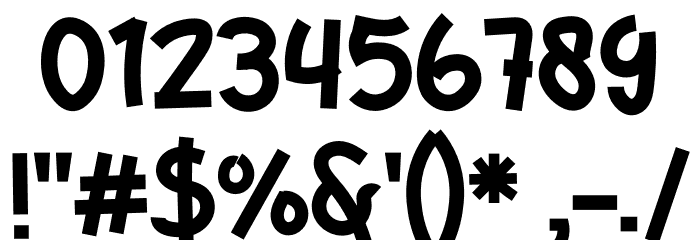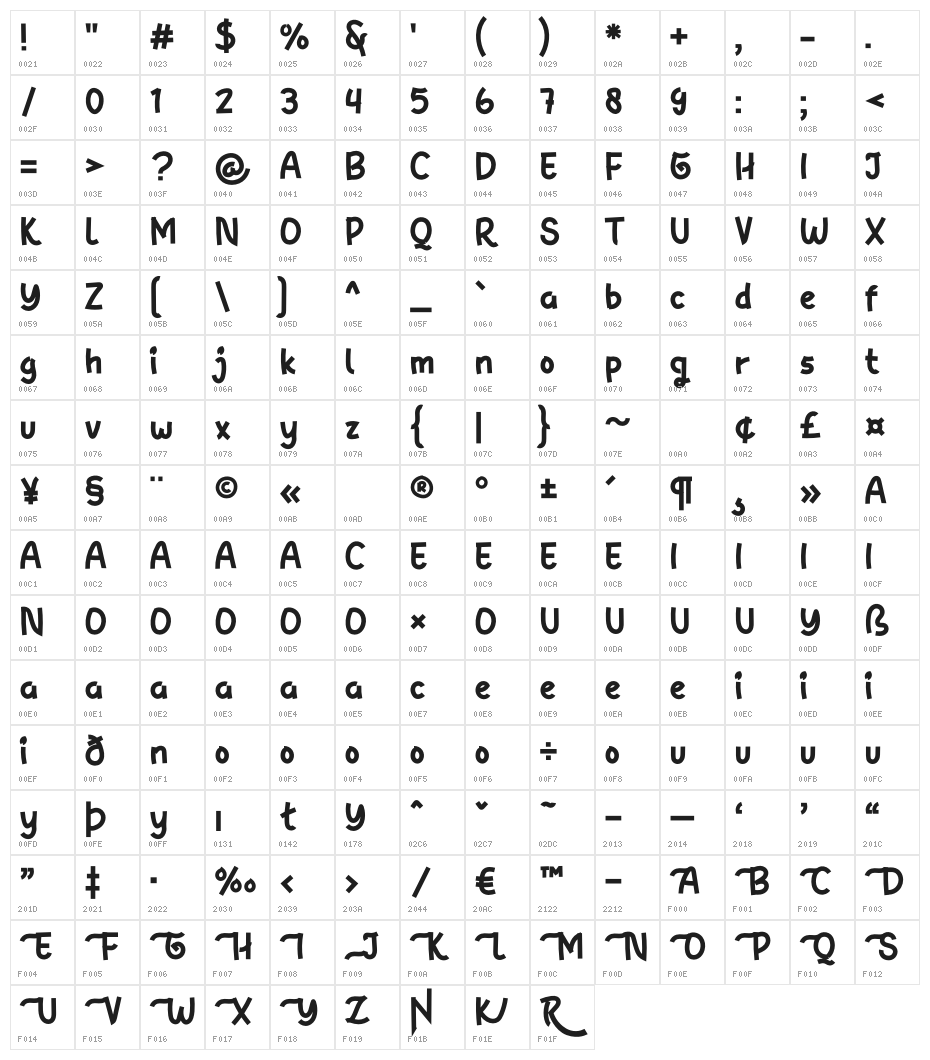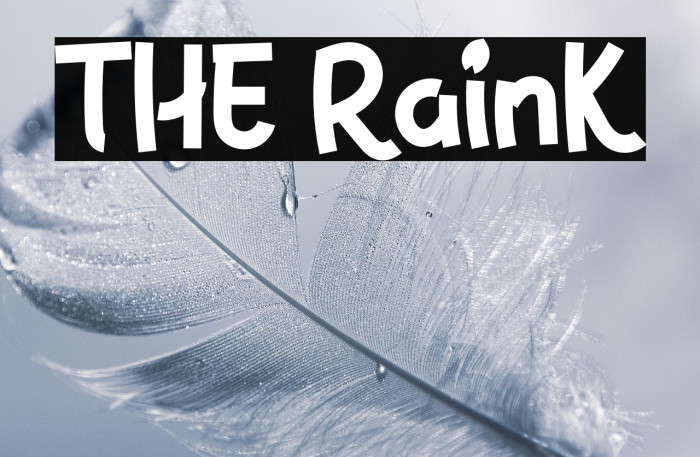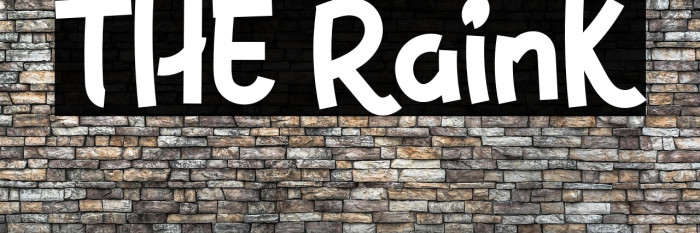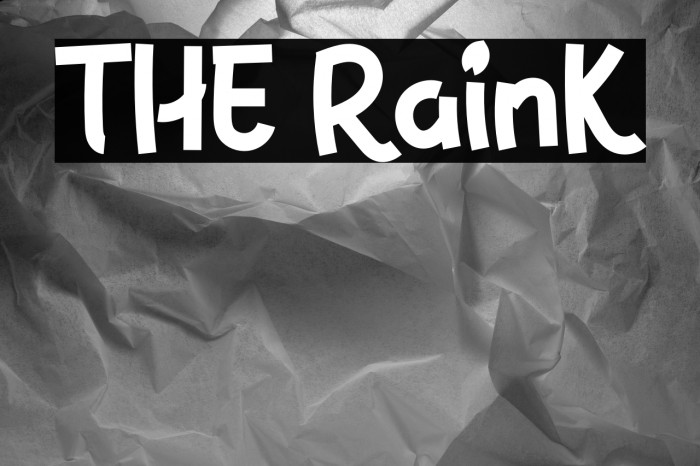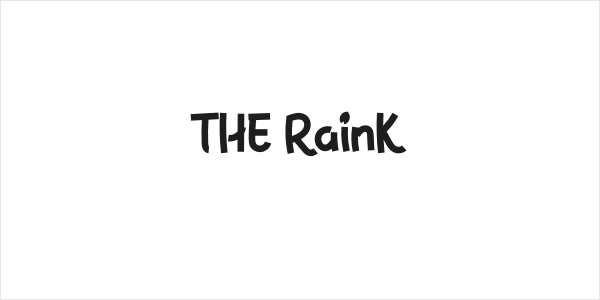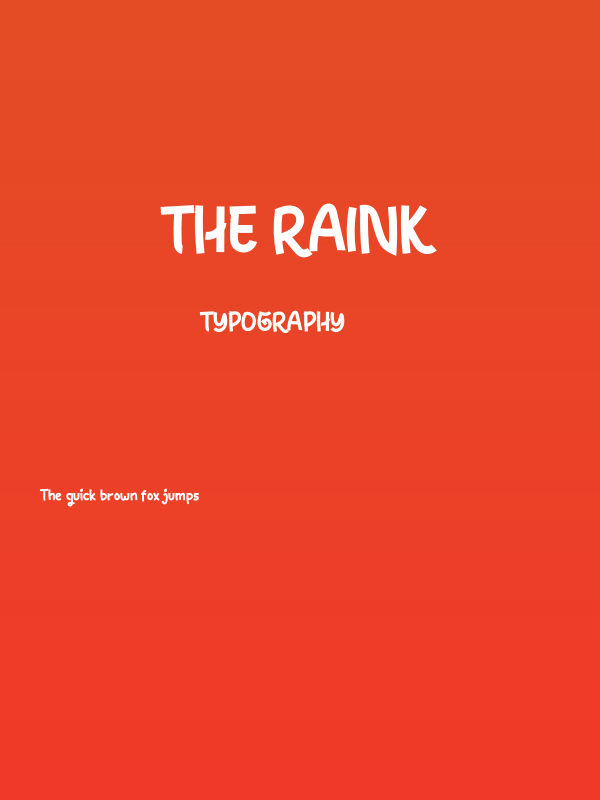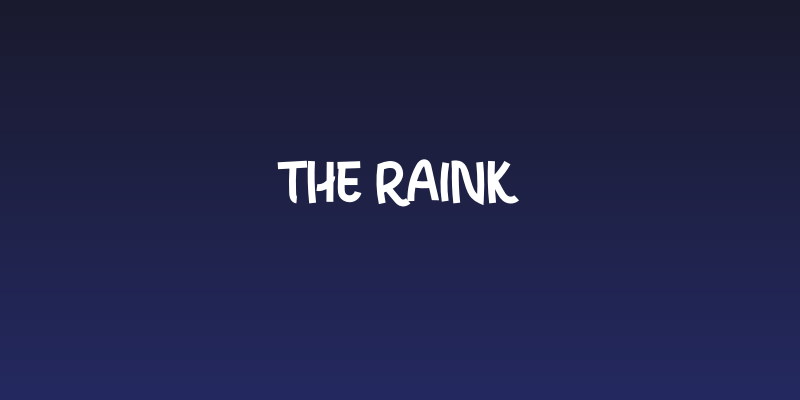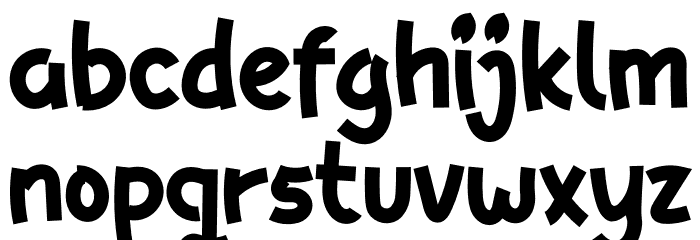
THE RainK Font
THE RainK Description
This playful and whimsical font features bold, irregular strokes that give it a hand-drawn appearance. The uppercase letters are characterized by their quirky, uneven lines and occasional decorative elements, such as the spiral in the letter 'G'. The lowercase letters maintain the same playful style, with rounded edges and a slightly uneven baseline that adds to the casual feel. The numerals and special characters are consistent with the overall design, offering a cohesive look. This font's unique style makes it stand out, perfect for projects that require a touch of fun and creativity.